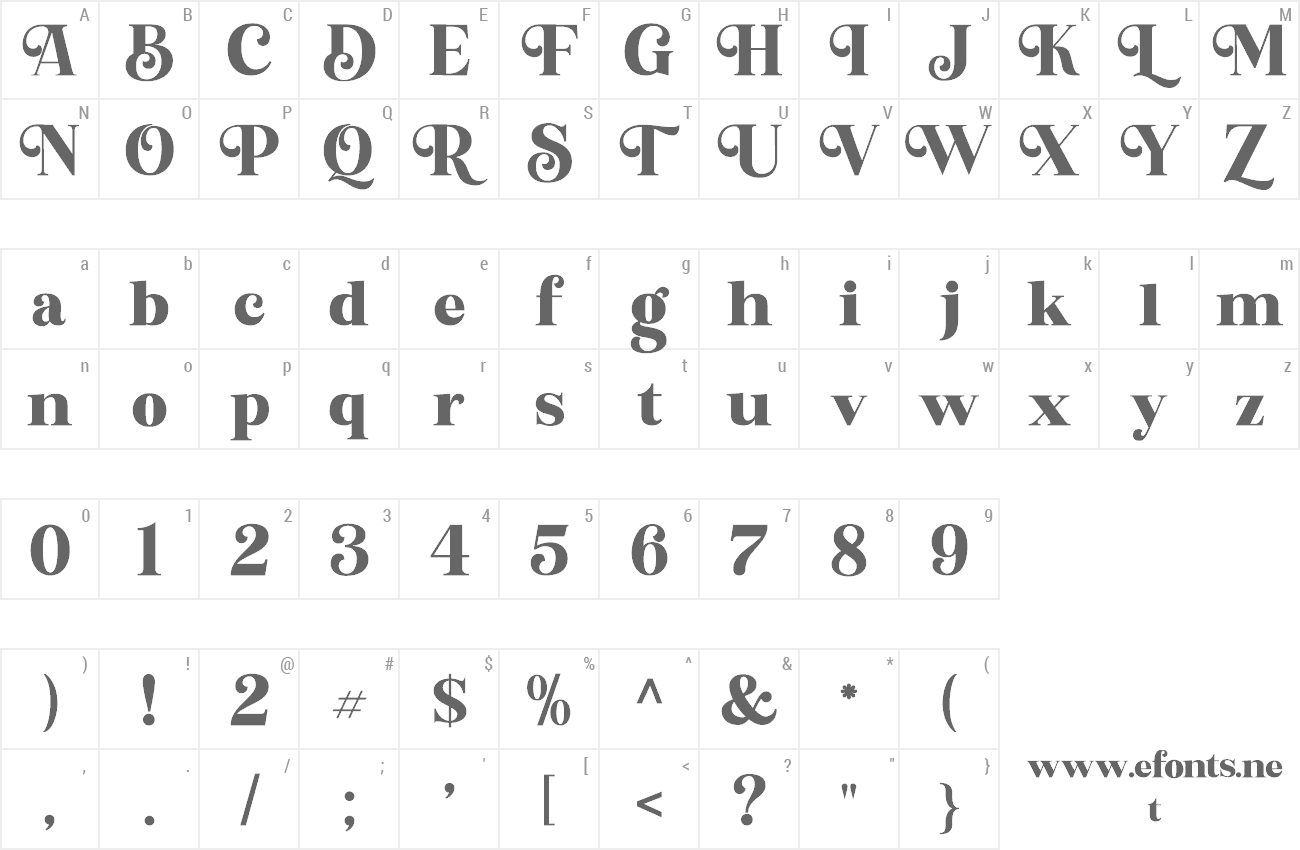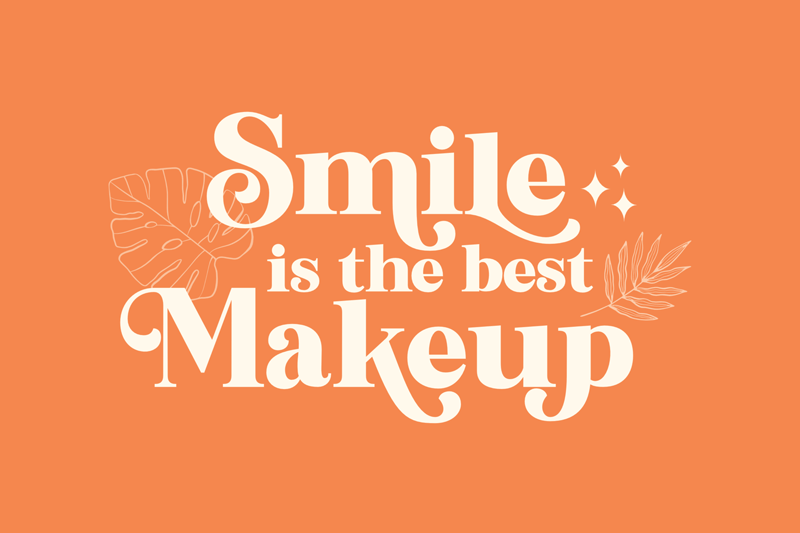
Preview and download Brodies Font. Created by Letterflow Studio in Fancy Retro styles with Free for personal use license.
Brodies is a modern display font with bright positive character. Clean forms and a bit curly letter ends creates a friendly mood in any designs. It comes with Regular and Stylish version, Opentype features (stylistic alternates and standard ligatures). Brodies font is perfect for headlines, magazines, logotypes, food package, advertising and many others |